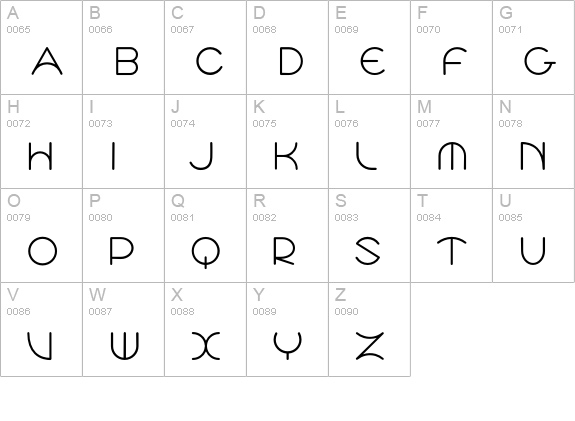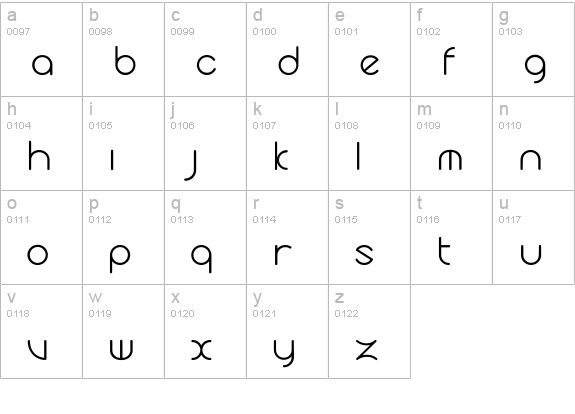
Cyclo Trial Font Details
Cyclo Trial font is a modern and stylish typeface that is perfect for a wide range of design projects. With its sleek and versatile design, this font is sure to make your text stand out and grab attention. Whether you're designing a logo, poster, or website, Cyclo Trial font is a great choice to give your project a professional and polished look. The best part? Cyclo Trial font is available for free download at FontsMarket.com. You can easily access this font and use it in your projects without any cost. Don't miss out on this fantastic opportunity to enhance your designs with the elegance and sophistication of Cyclo Trial font. Download it today and see the difference it can make in your creative work!